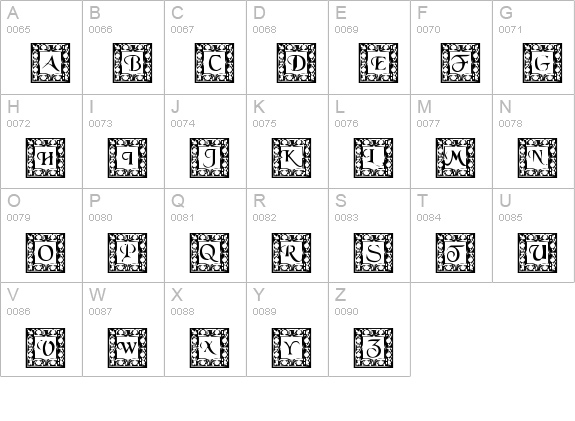
DLFillegreeCaps Font Details
DLFillegreeCaps font is a stunning display typeface that exudes elegance and sophistication. Its intricate filigree details and decorative elements make it perfect for adding a touch of luxury to your designs. This unique font is ideal for headlines, invitations, branding, and more. The best part about DLFillegreeCaps font is that it is completely free to download at FontsMarket.com. Whether you are a professional designer or a hobbyist looking to enhance your projects, this font is a must-have addition to your collection. Download DLFillegreeCaps today and bring a touch of class to your designs.